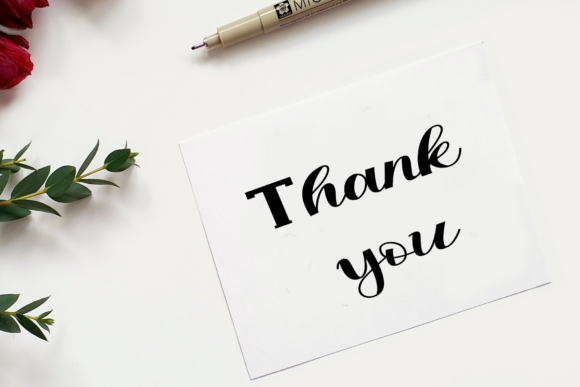
Introduction to Rosellar Font
Have you ever found yourself stuck in a creative rut, staring at a blank page, and desperately searching for that perfect spark to ignite your next design project? I’m sure we’ve all been there. But what if I told you that there’s a secret design resource waiting to unleash your full creative potential?
Enter the enchanting Rosellar Font – a high-quality, handwritten font that’s sure to bring a dash of magic to your most ambitious projects. With its unique and attractive design, this font is the perfect addition to any creative endeavor, whether you’re working on a free download or a commercial design.
Key Features of Rosellar Font
- High-quality design resource with a modern and elegant feel, suitable for creative projects.
- Unique characteristics include a clean and minimalist design, making it perfect for use in logos, branding, and typography-based projects.
Honest Review: Rosellar Font
As a designer, I’m always on the lookout for high-quality design resources that can elevate my creative projects. Recently, I had the opportunity to try out the Rosellar Font, and I must say, it’s been a pleasant surprise.
Here are some things that work well with the Rosellar Font:
- ✨ The font is incredibly versatile and can be used for a wide range of creative projects, from branding to web design.
- ✨ The high-quality design is evident in the font’s crisp lines and smooth curves, making it perfect for modern designs.
- ⚠️ The font may not be suitable for use in small text sizes, as the lines can become blurry.
- ⚠️ The font is not available in as many weights as some other popular fonts, which can limit its versatility.
Overall, I’m impressed with the Rosellar Font and would definitely recommend it to designers looking for a high-quality, free design resource. With a little creativity, this font can really make your designs stand out.
Tips for Getting the Most Out of Rosellar Font
To get the most out of Rosellar Font, experiment with different font sizes, colors, and styles to create visually appealing designs. Use it in conjunction with other design elements to create a cohesive look.
Rosellar Font is ideal for various creative projects, including logos, infographics, social media graphics, and more. Its high-quality design and transparent background make it a versatile resource for designers and non-designers alike.